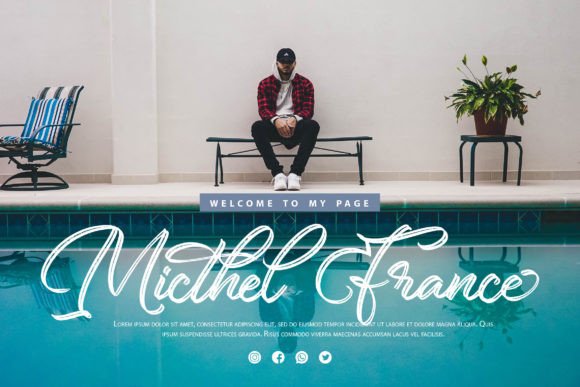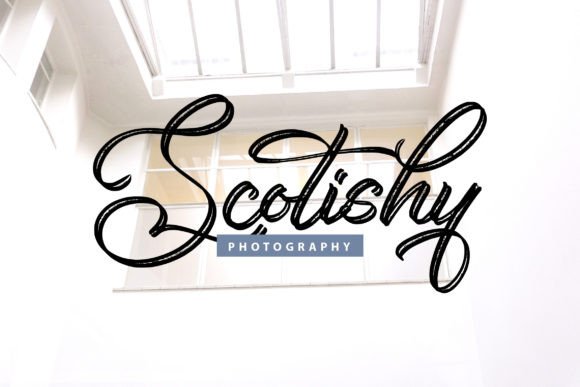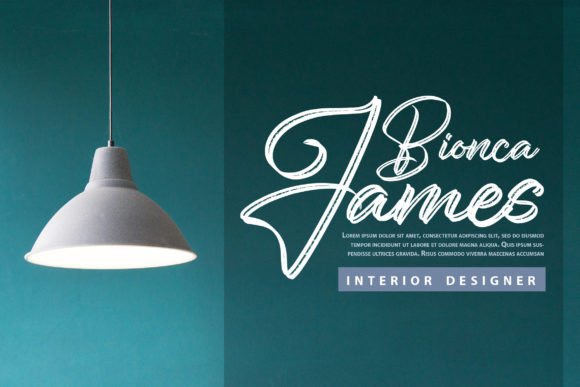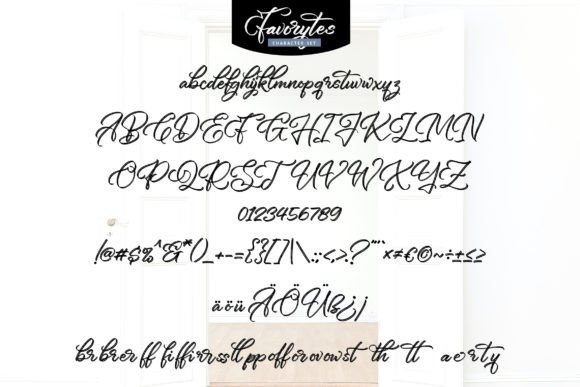
The Ultimate Design Game-Changer: Favorytes Font
I’ll never forget the moment I stumbled upon the perfect font for a client’s branding project. I had been searching for what felt like an eternity, trying out font after font, but nothing seemed quite right. That was until I discovered Favorytes – a dazzling script font that has since become a staple in my design library. In this article, I’ll share my experience with Favorytes, its features, and how to make the most of this stunning font.
A Personal Review: What I Love About Favorytes
Favorytes is more than just a beautiful font – it’s a design powerhouse. Here are a few things that I absolutely love about it:
- ✨ Exquisite craftsmanship: Favorytes is meticulously designed, with intricate details that make it stand out from other script fonts.
- ✅ Versatility: Whether you’re working on a branding project, a wedding invitation, or a social media graphic, Favorytes can adapt to any topic or style.
- 💡 PUA encoding: This font is PUA encoded, making it easy to access all glyphs and swashes, giving you endless creative possibilities.
While Favorytes is an exceptional font, there are a few minor quirks to be aware of:
- ⚠️ Learning curve: With so many glyphs and swashes available, it may take some time to get familiar with the font’s features.
- 🤔 Overuse: As with any beautiful font, there’s a risk of overusing Favorytes. Make sure to balance it with other design elements to avoid overwhelming your design.
The Story Behind Favorytes
Favorytes was designed with the intention of creating a versatile, elegant script font that could be used for a wide range of creative projects. The designer aimed to craft a font that would be both beautiful and functional, with a focus on intricate details and OpenType features.
| Font Name | Favorytes Font |
| What is PUA encoding, and how does it benefit Favorytes? | PUA (Private Use Area) encoding allows for the inclusion of additional glyphs and swashes, making Favorytes a more versatile and creative font. |
| Is Favorytes suitable for body text? | While Favorytes is a beautiful font, it’s primarily designed for display purposes. For body text, consider using a clearer, more legible font. |